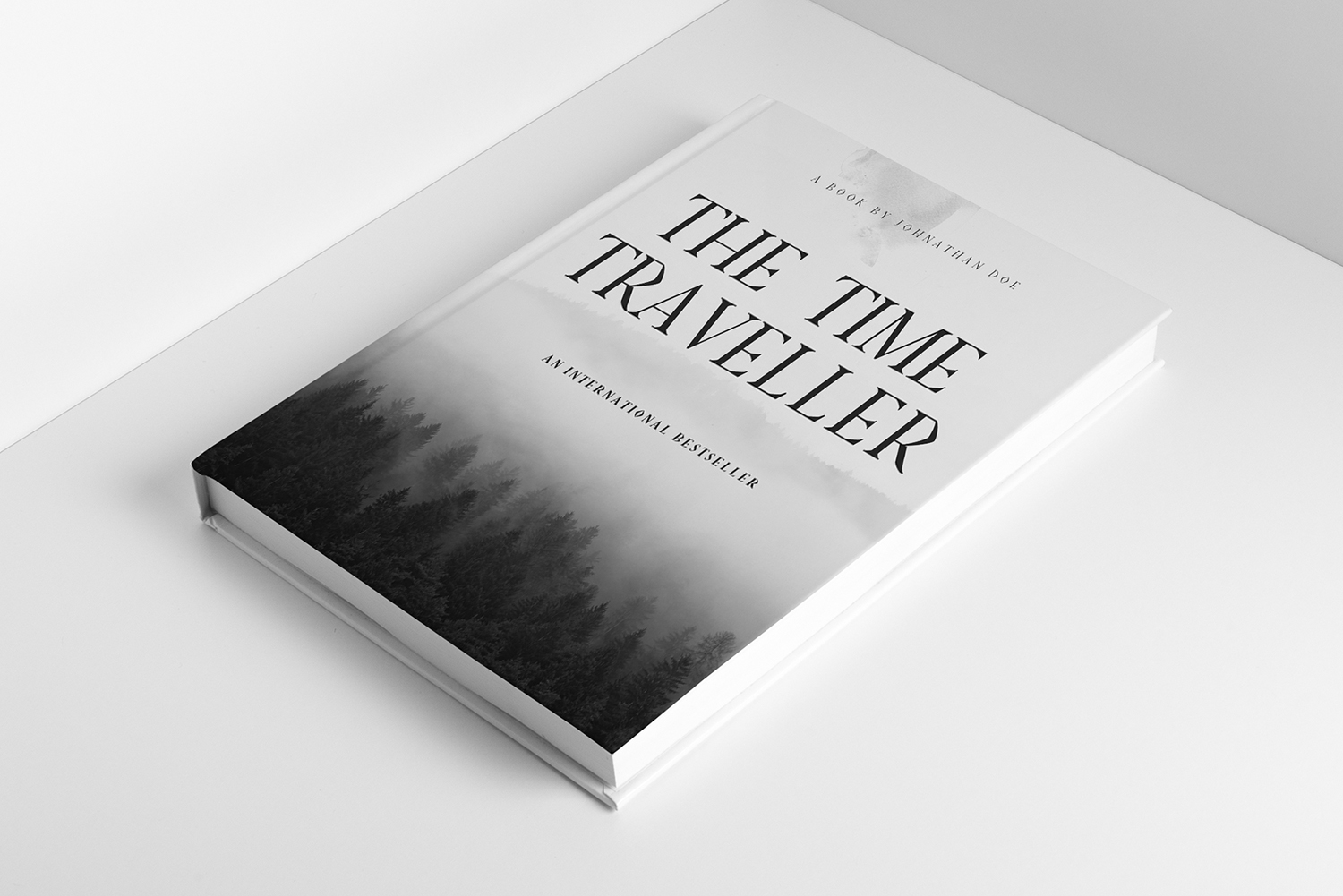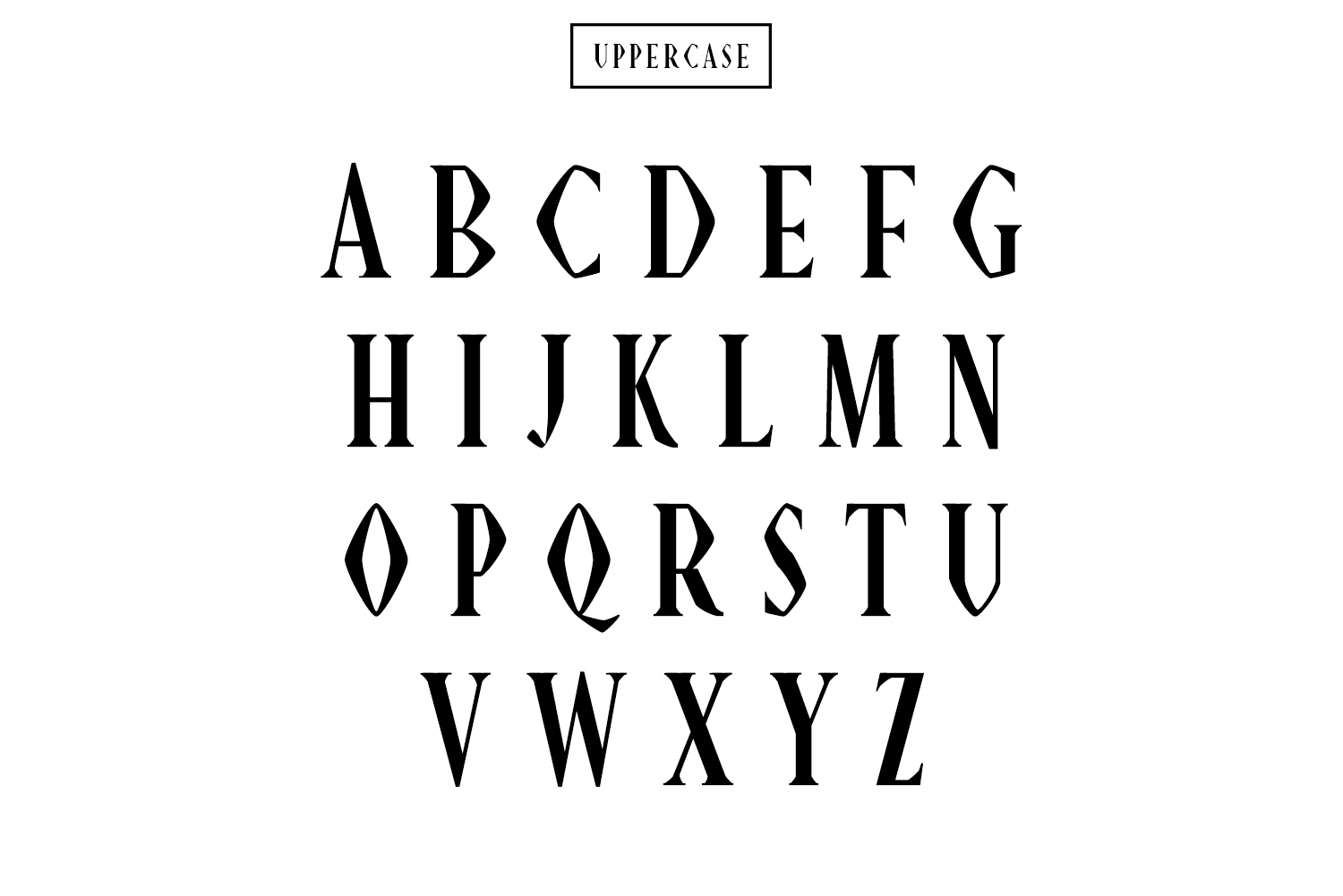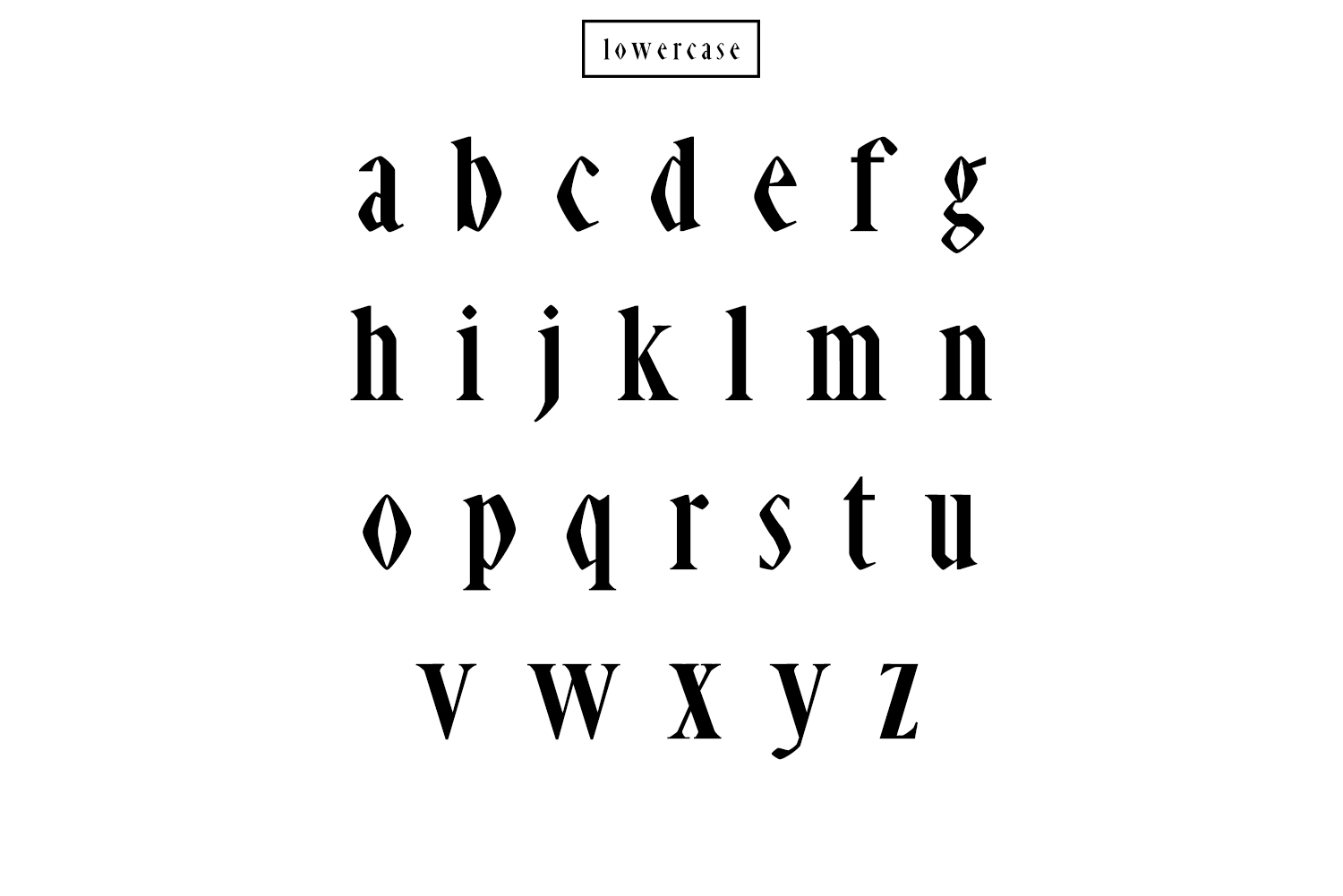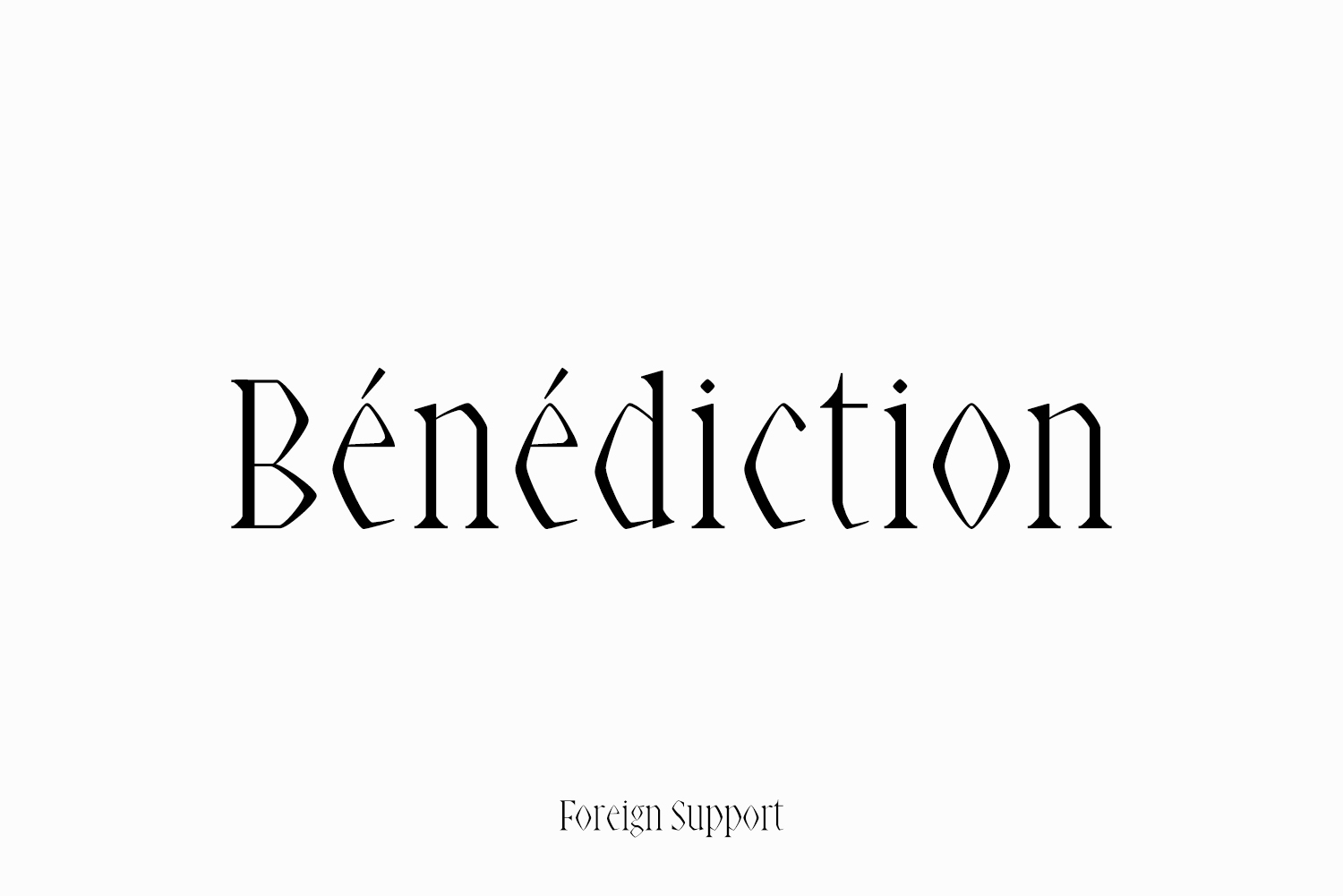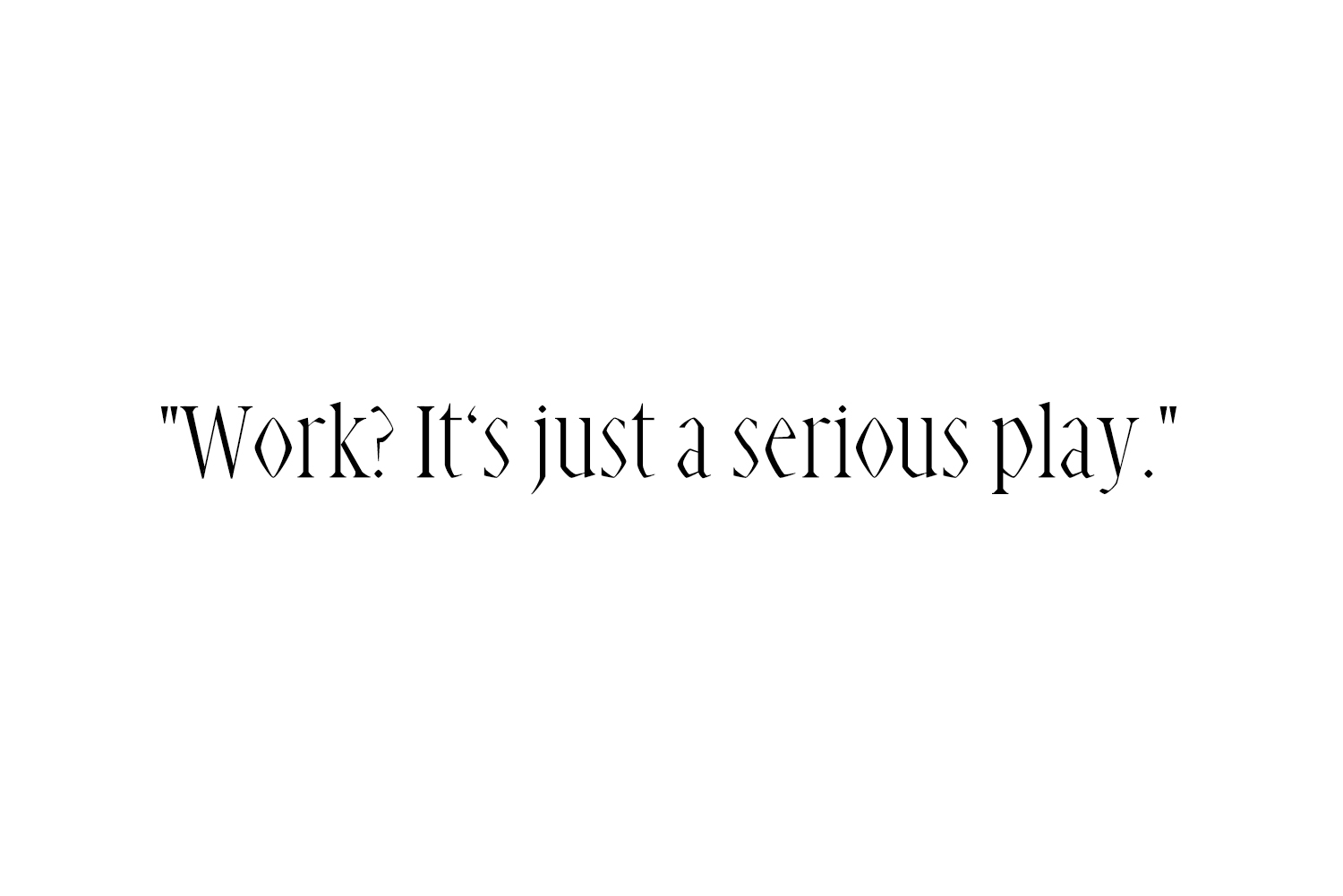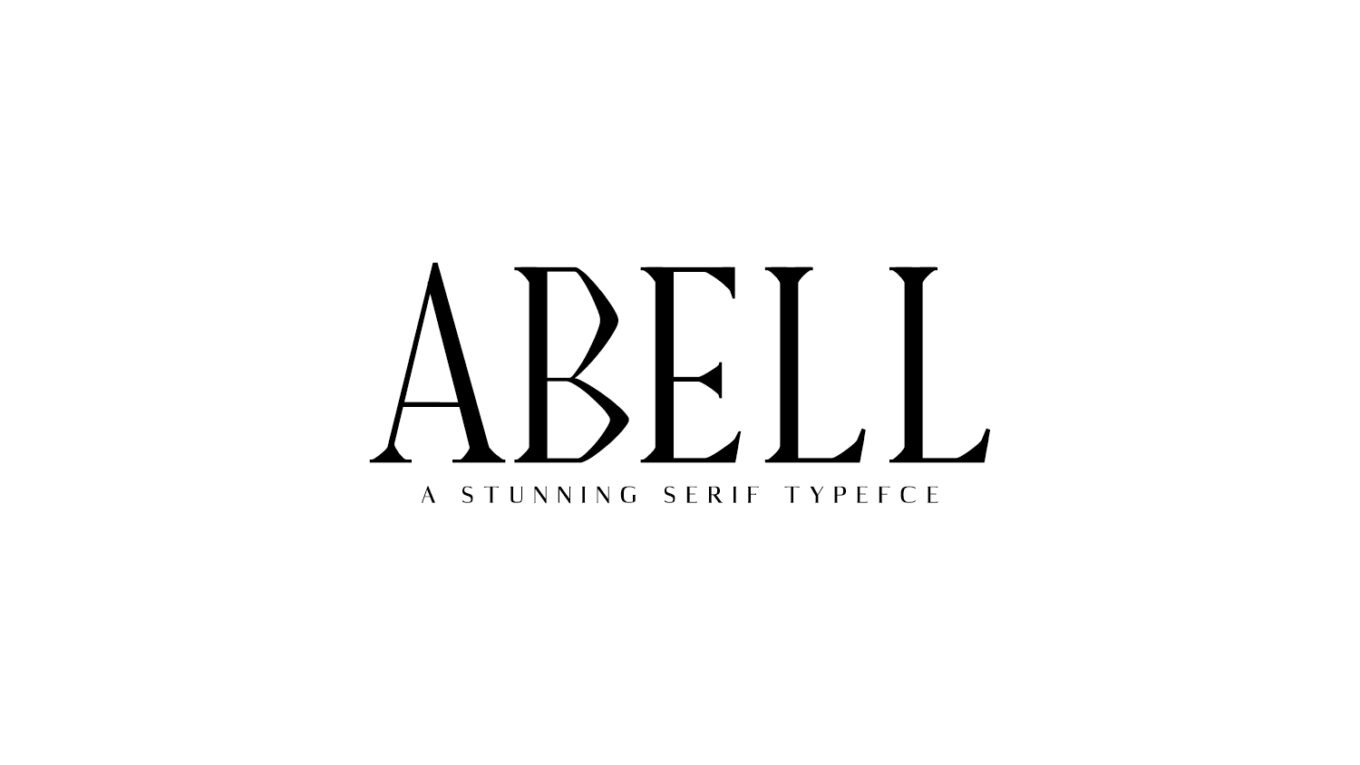
Discover the Elegance of Abell Font: A Timeless Art-Deco Serif Font
Are you a designer or crafter looking for a font that exudes sophistication and style? Look no further than the Abell Font, a stunning art-deco serif font that is sure to elevate your designs to the next level. With its unique blend of classic and modern elements, Abell is the perfect choice for anyone seeking to add a touch of elegance to their work.
What is Abell Font?
Abell is a font family that boasts an art-deco touch, making it a standout in the world of typography. This lovely serif font is comprised of 5 different weights, providing versatility and flexibility for a wide range of design applications. Whether you’re working on a logo, brochure, or website, Abell is the perfect choice for creating visually stunning designs that are sure to captivate your audience.
Key Features of Abell Font
- Art-Deco Touch: Abell font features an art-deco touch that adds a level of sophistication and glamour to your designs.
- 5 Different Weights: With 5 different weights to choose from, you can use Abell font for a variety of design applications, from headings and titles to body text.
- Serif Font: Abell is a serif font, which means it features small lines or flourishes at the ends of the letters, adding a level of elegance and refinement to your designs.
- Unique and Lovely: Abell font is a one-of-a-kind font that is sure to make your designs stand out from the crowd.
Design Possibilities with Abell Font
One of the best things about Abell font is its versatility. It pairs well with both script and sans serif fonts, making it easy to create truly breathtaking designs. Here are a few design possibilities to consider:
- Pair with Script Fonts: Abell font pairs beautifully with script fonts, creating a stunning contrast between the elegant serif font and the flowing script font.
- Pair with Sans Serif Fonts: Abell font also pairs well with sans serif fonts, creating a modern and sleek look that is perfect for contemporary designs.
- Use for Headings and Titles: Abell font is perfect for headings and titles, adding a level of sophistication and elegance to your designs.
- Use for Body Text: Abell font is also suitable for body text, providing a clear and readable font that is easy on the eyes.
Why Choose Abell Font?
So why choose Abell font for your design projects? Here are just a few reasons:
- Unique and Stylish: Abell font is a unique and stylish font that is sure to make your designs stand out from the crowd.
- Versatile: Abell font is versatile and can be used for a wide range of design applications, from headings and titles to body text.
- Elegant and Sophisticated: Abell font exudes elegance and sophistication, making it perfect for designs that require a level of refinement and luxury.
In conclusion, Abell font is a stunning art-deco serif font that is sure to elevate your designs to the next level. With its unique blend of classic and modern elements, Abell is the perfect choice for designers and crafters seeking to add a touch of elegance and sophistication to their work. Whether you’re working on a logo, brochure, or website, Abell font is the perfect choice for creating visually stunning designs that are sure to captivate your audience.